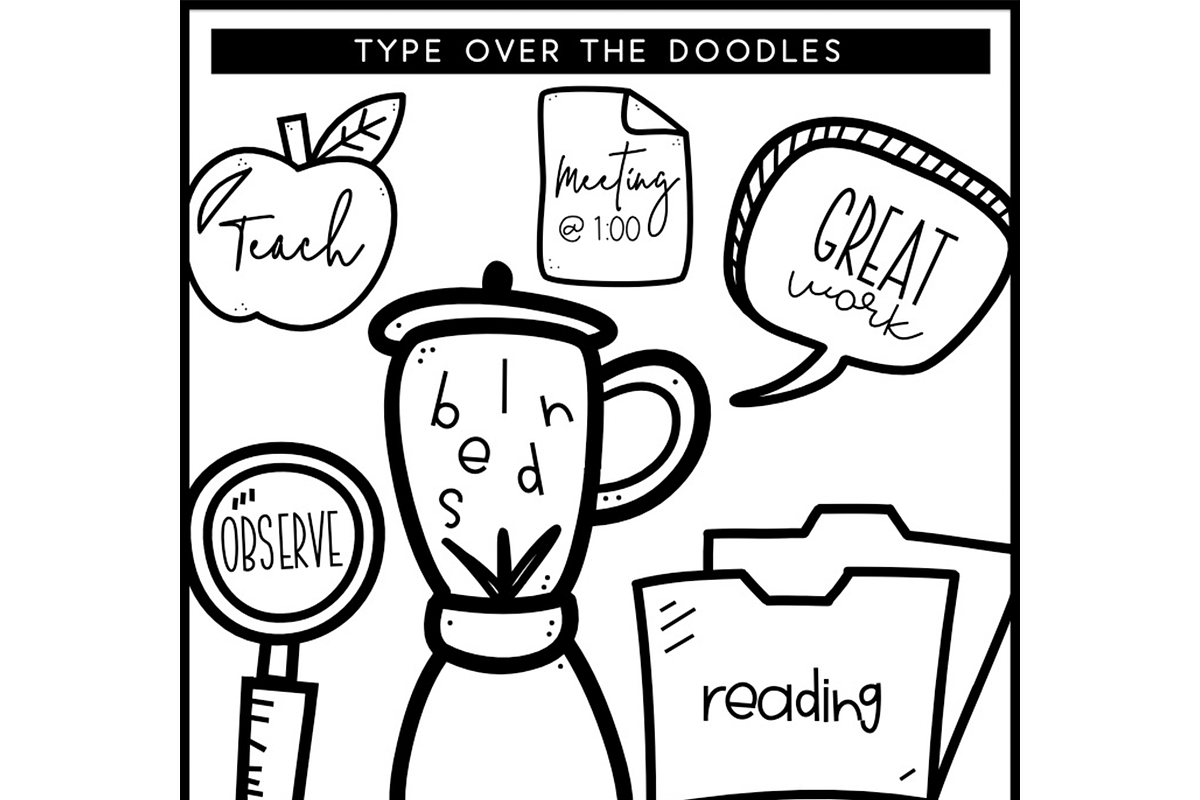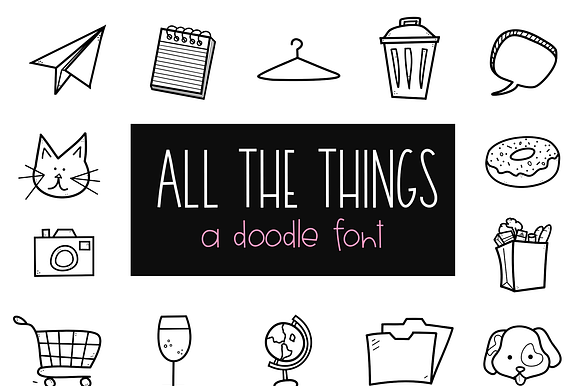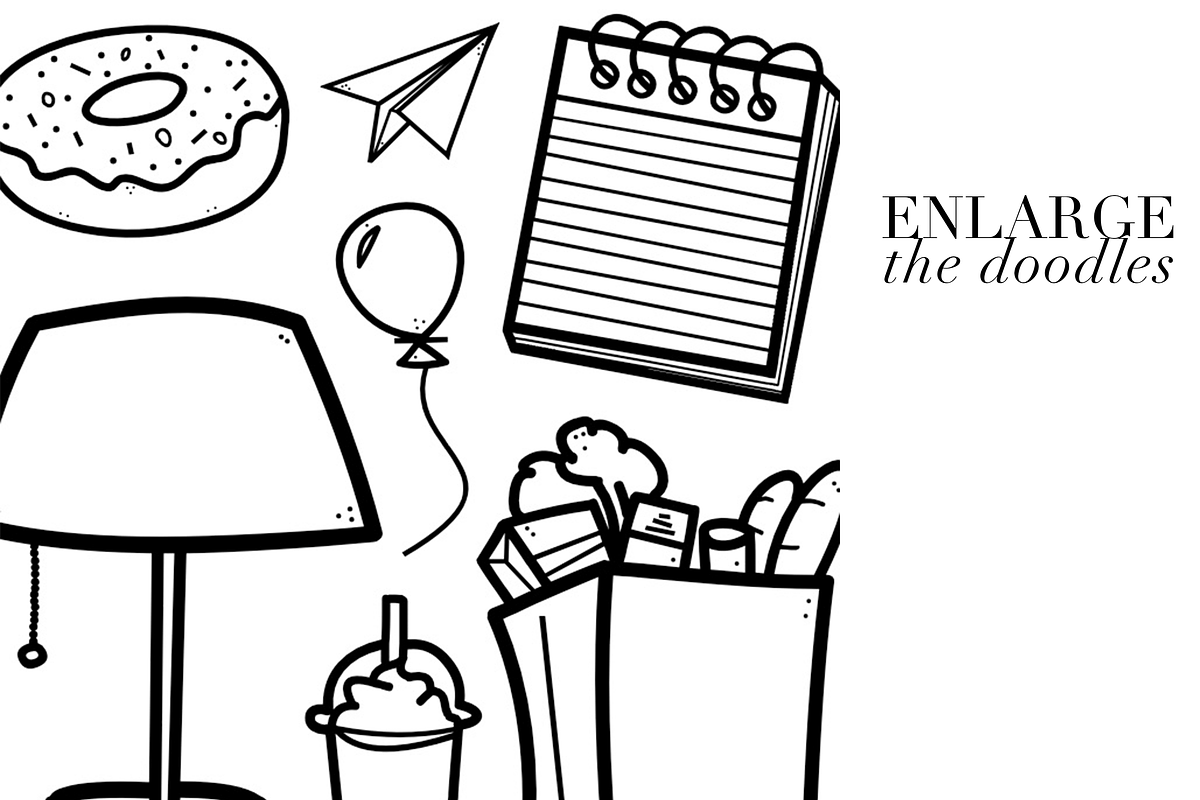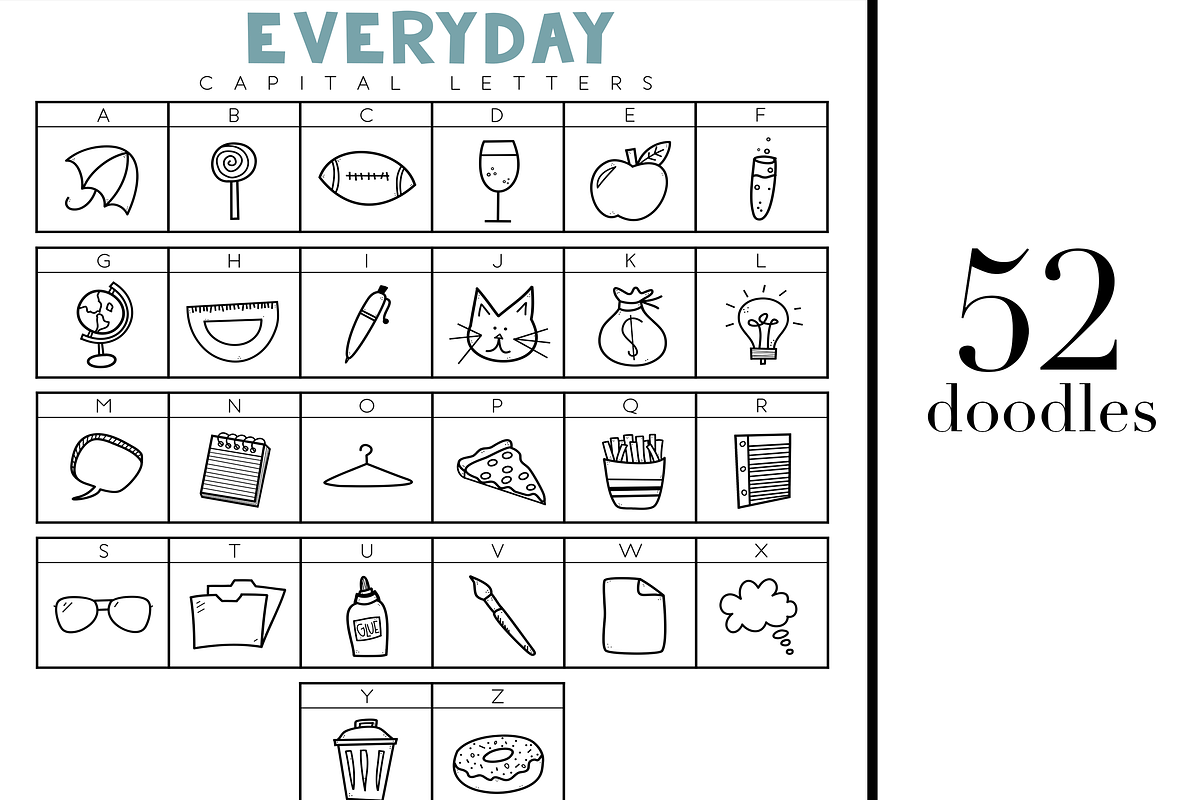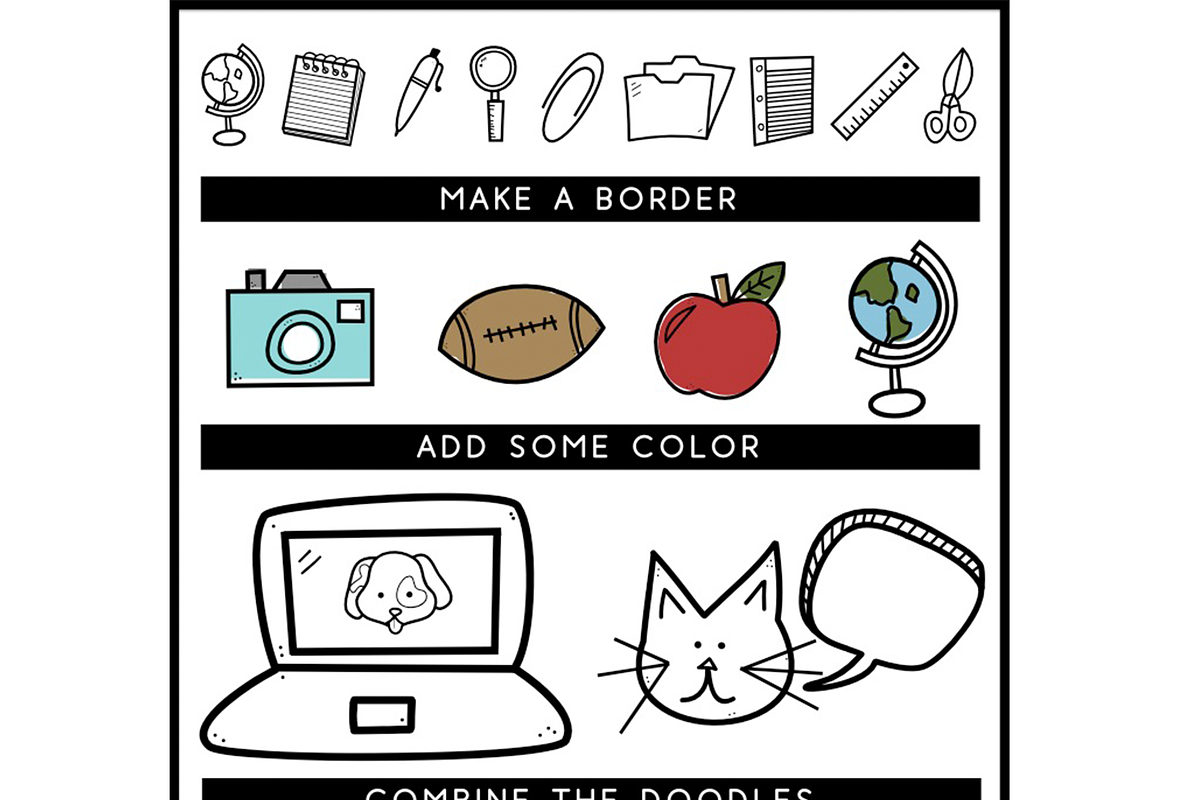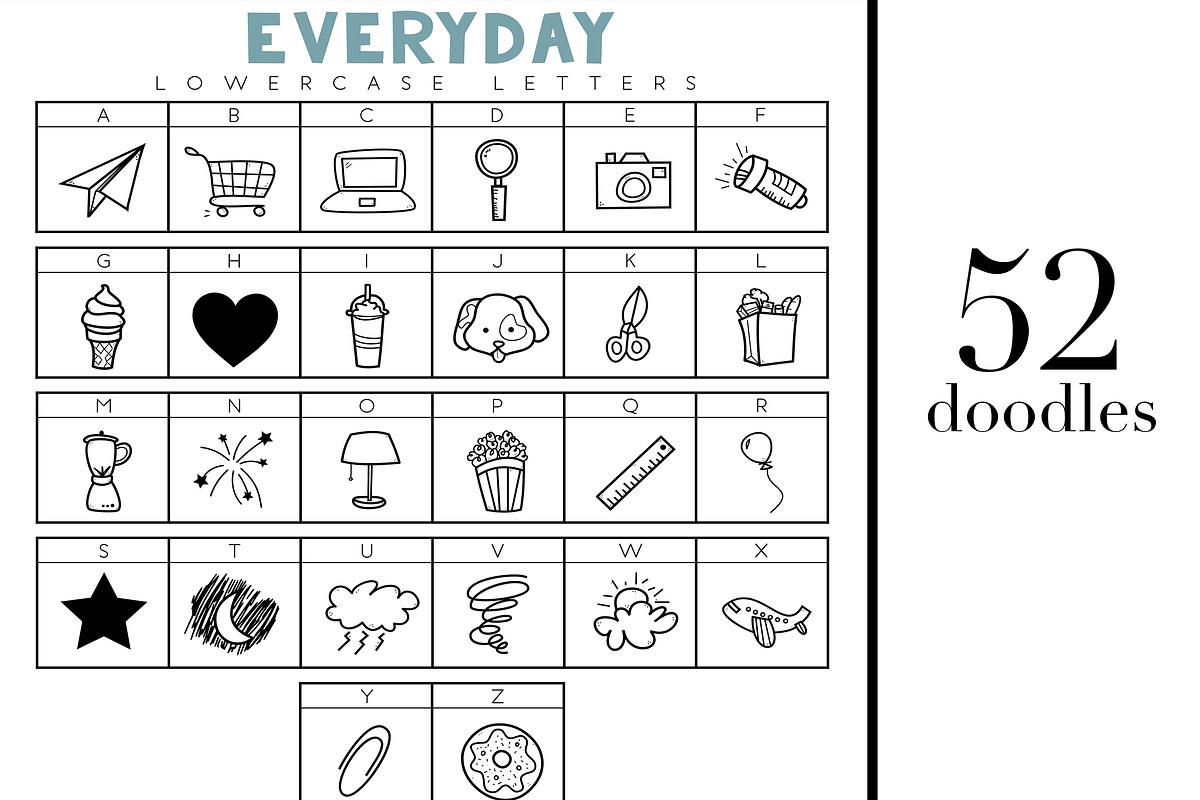
All The Things - Doodle Font
All The Things is a doodle (dingbat) font.
It includes 52 hand-drawn, everyday items. All you need to do is install the font and type a letter as you normally would. Instead of a letter showing up, a small doodle will!
You can resize the doodle, color the doodle and add text to the doodles! This purchase includes ALL THE THINGS FONT in a TTF file.
- It includes 52 hand-drawn, everyday items.